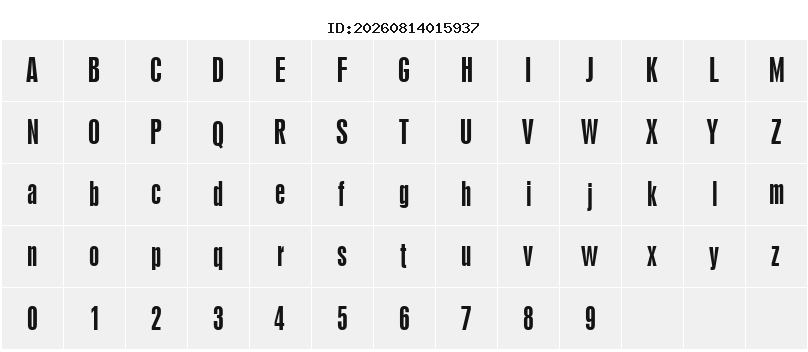
• Font Name: Swiss924 BT
• Font ID: Swiss 924
• Full Font Name: Swiss 924 BT
• PostScript Name: Swiss924BT-RegularB
About Swiss924 BT.ttf
Swiss924 BT.ttf is a modern, elegant sans-serif font designed for ultimate readability and visual harmony. Perfect for branding, headlines, web design, and print materials.